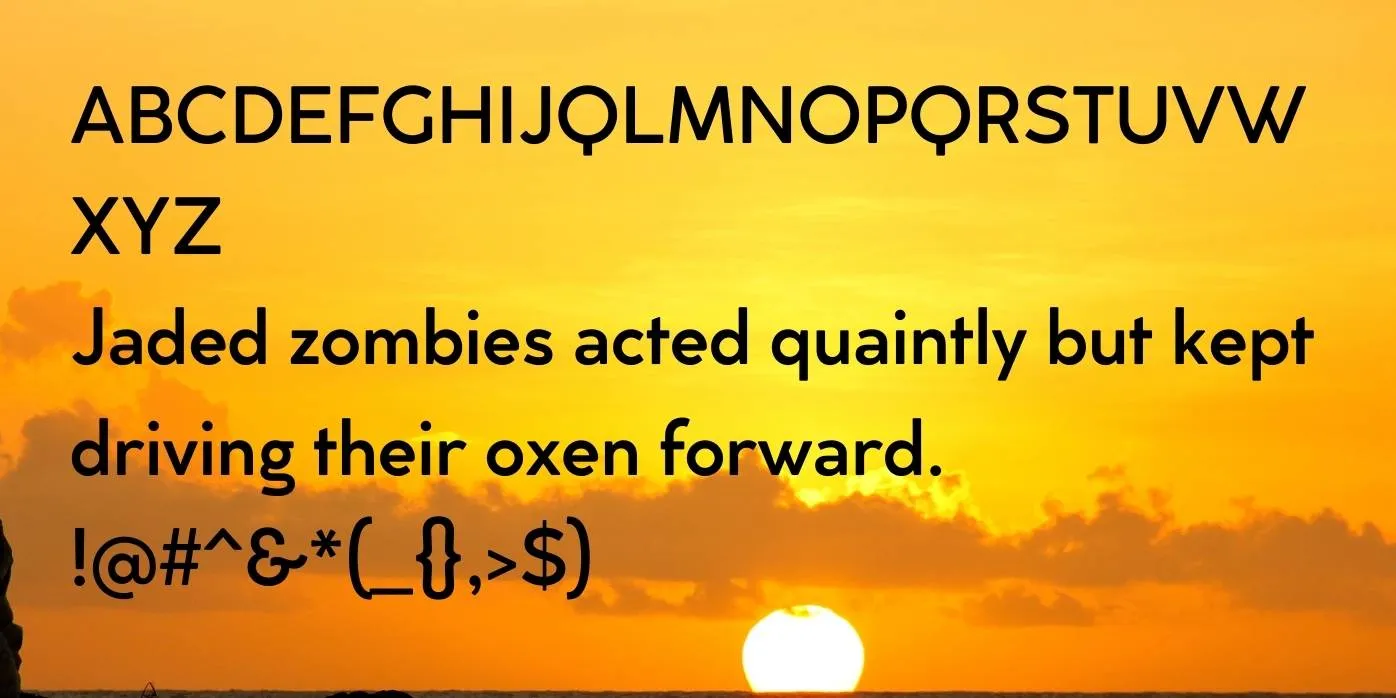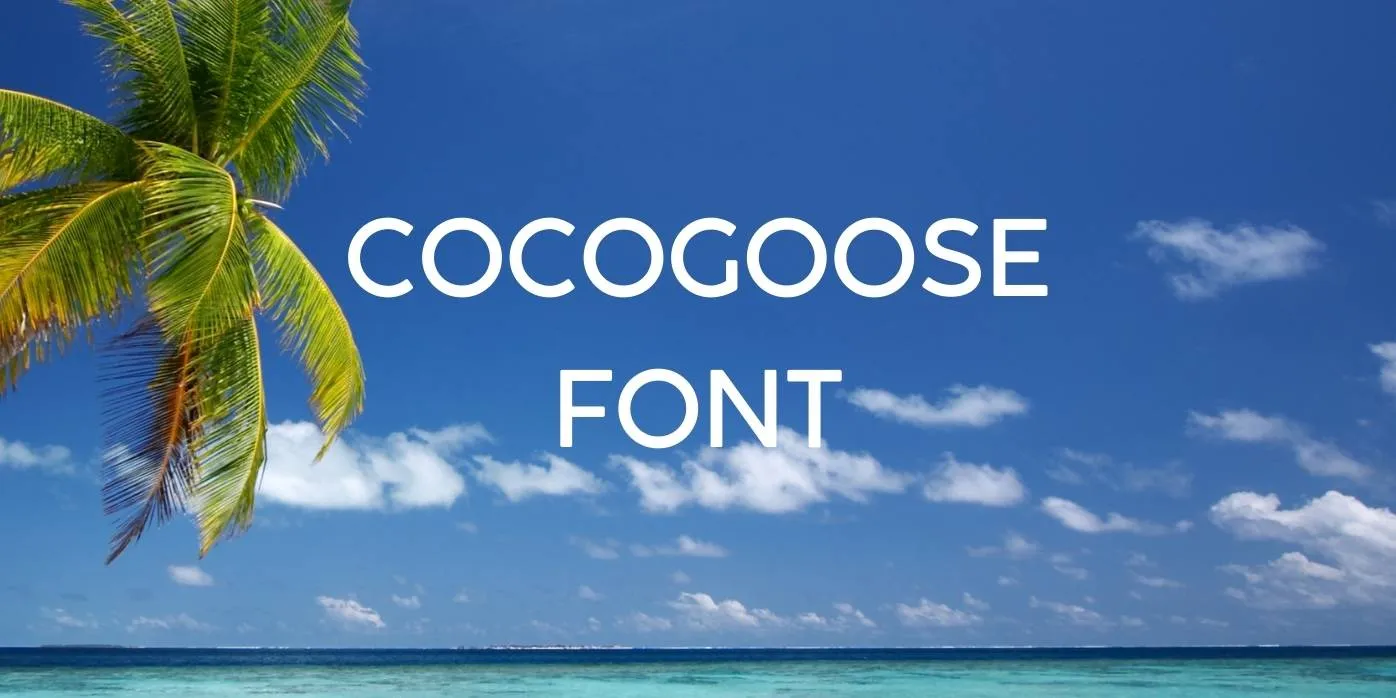
Cocogoose Font
Cocogoose Font is the preeminent typeface with many kinds of super styles and stunning textual visuals. It belongs to a sans serif font family and it has a large font family. The font is free for personal use and has TTF features. It has Opentype layouts and Truetype outlines including Uppercase and Lowercase, Letters, Numbers and Numerals, and special symbols also.